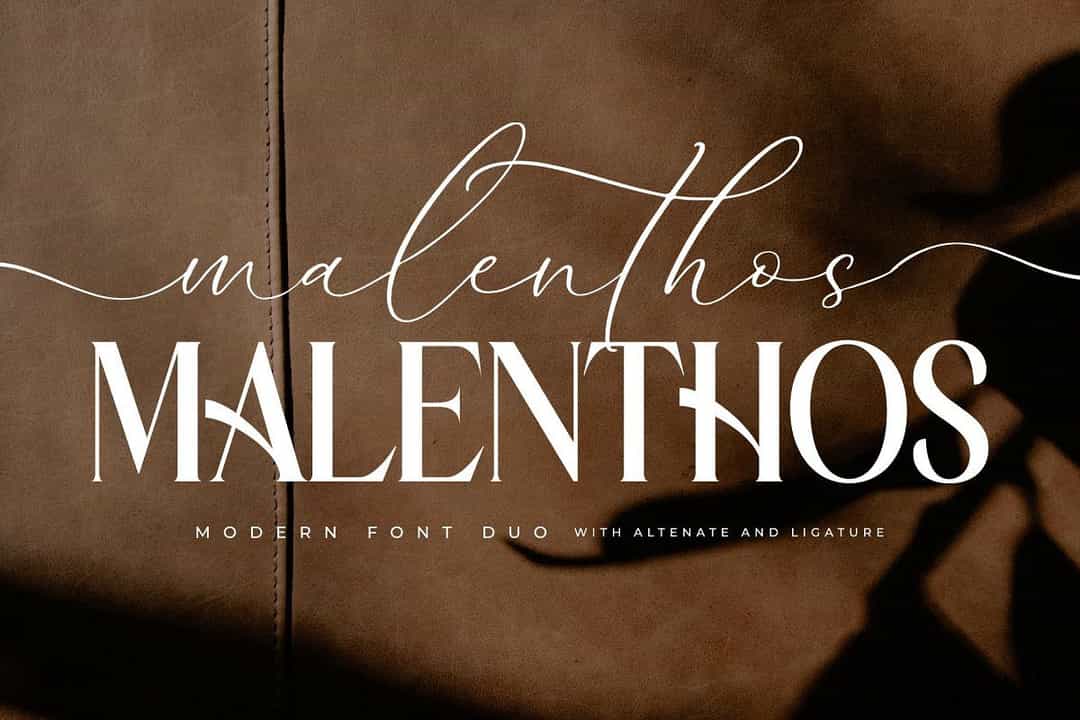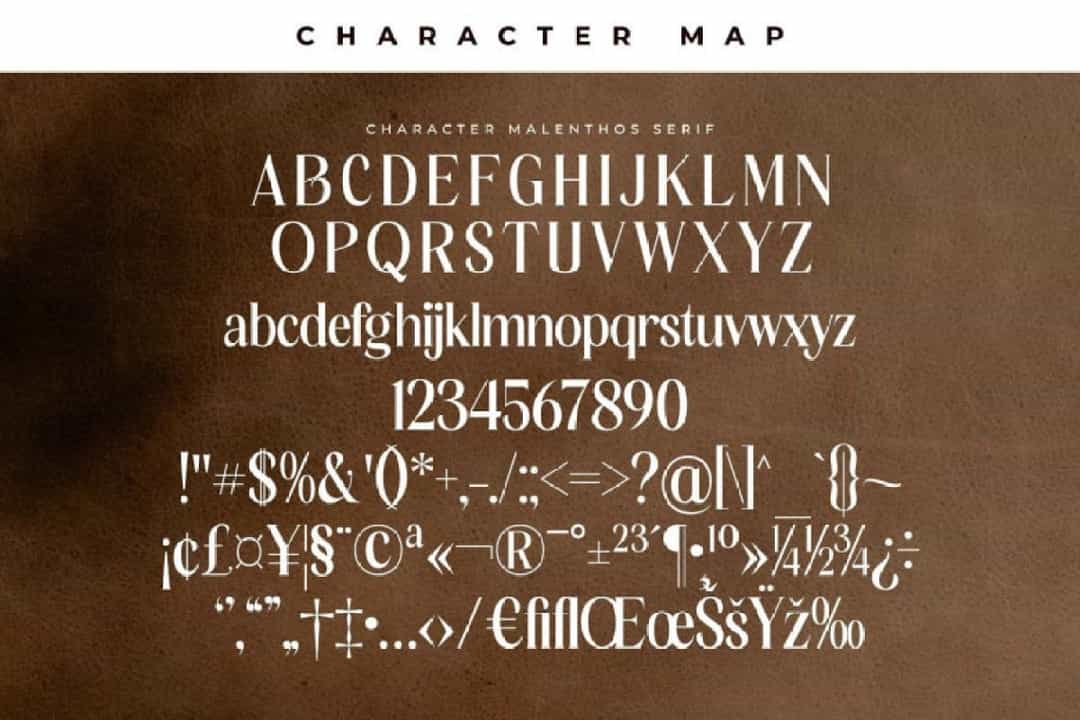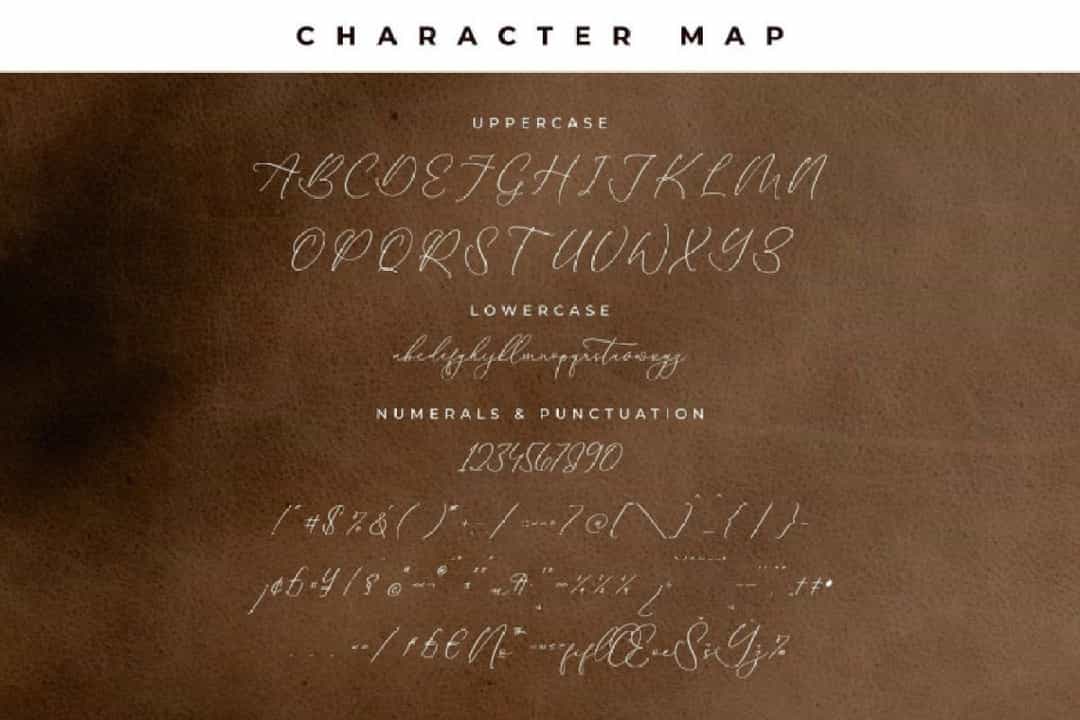
Malenthos Font Duo is proud to present. Featuring distinct serif and script font styles and contemporary aesthetic, this font can help create classy logos, book/film name designs, fashion magazine pages and clothing letters, quotes etc. This font makes an excellent choice when creating stylish logos or elegant book/film name designs – plus more.